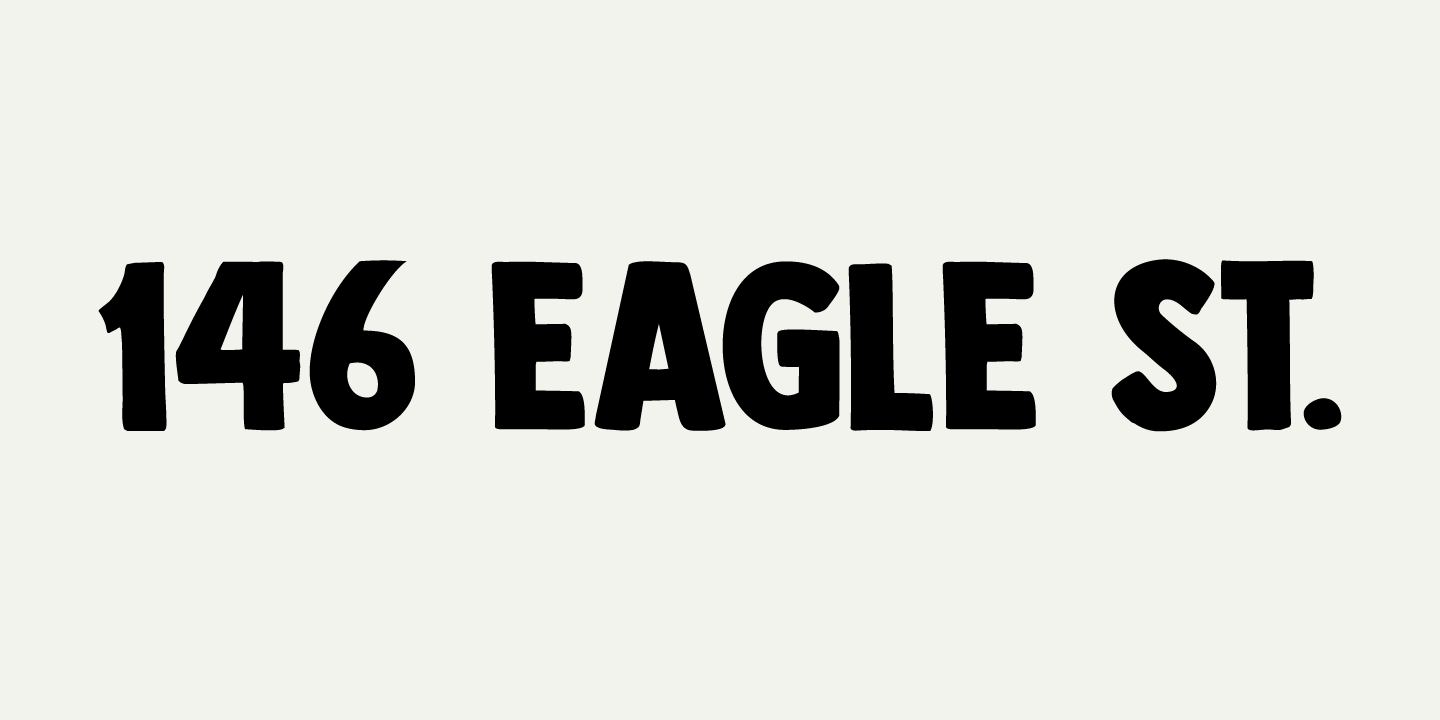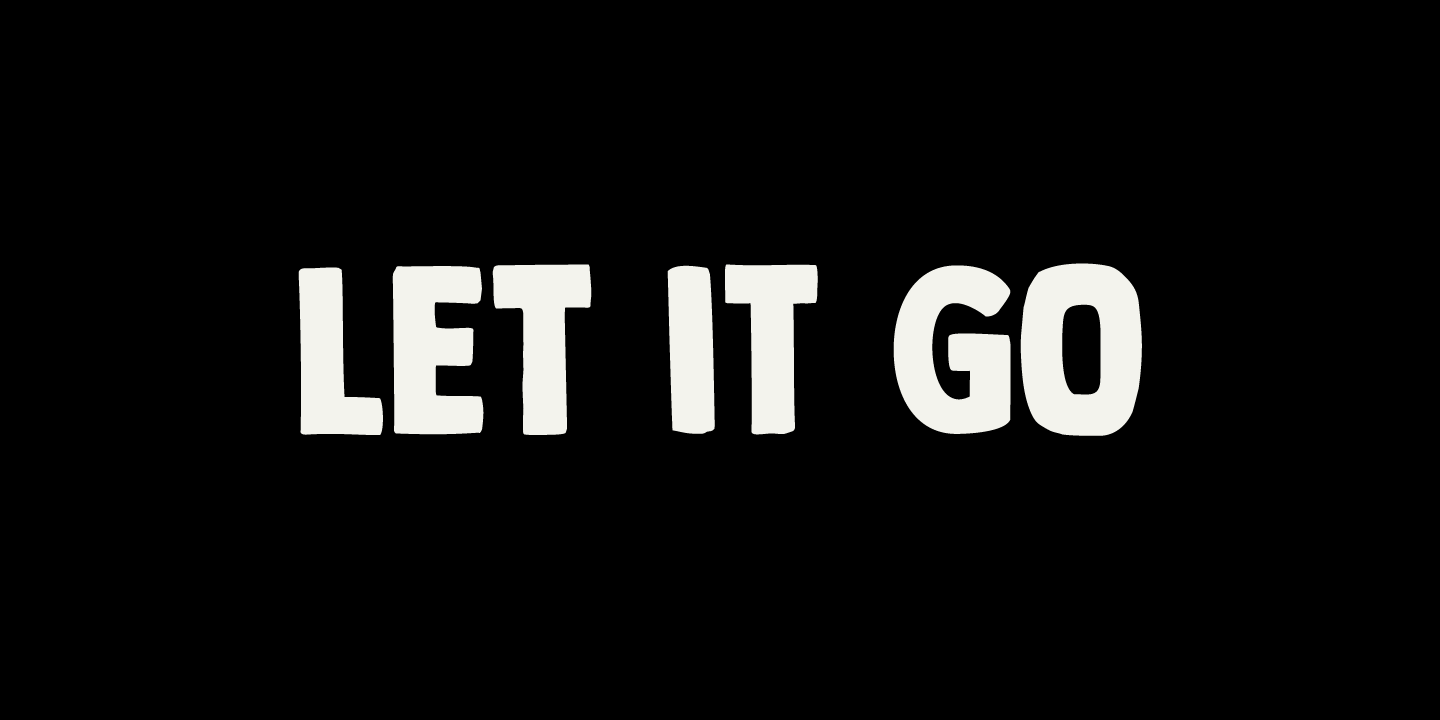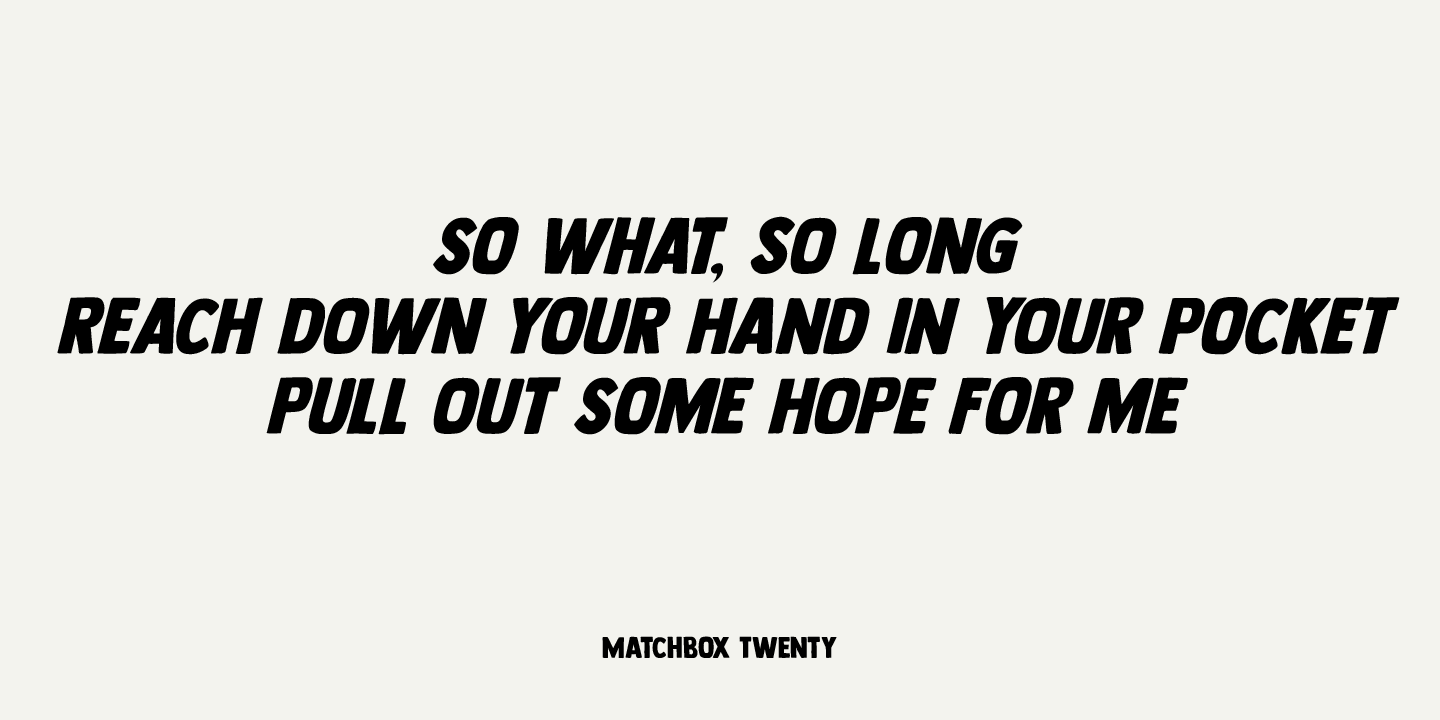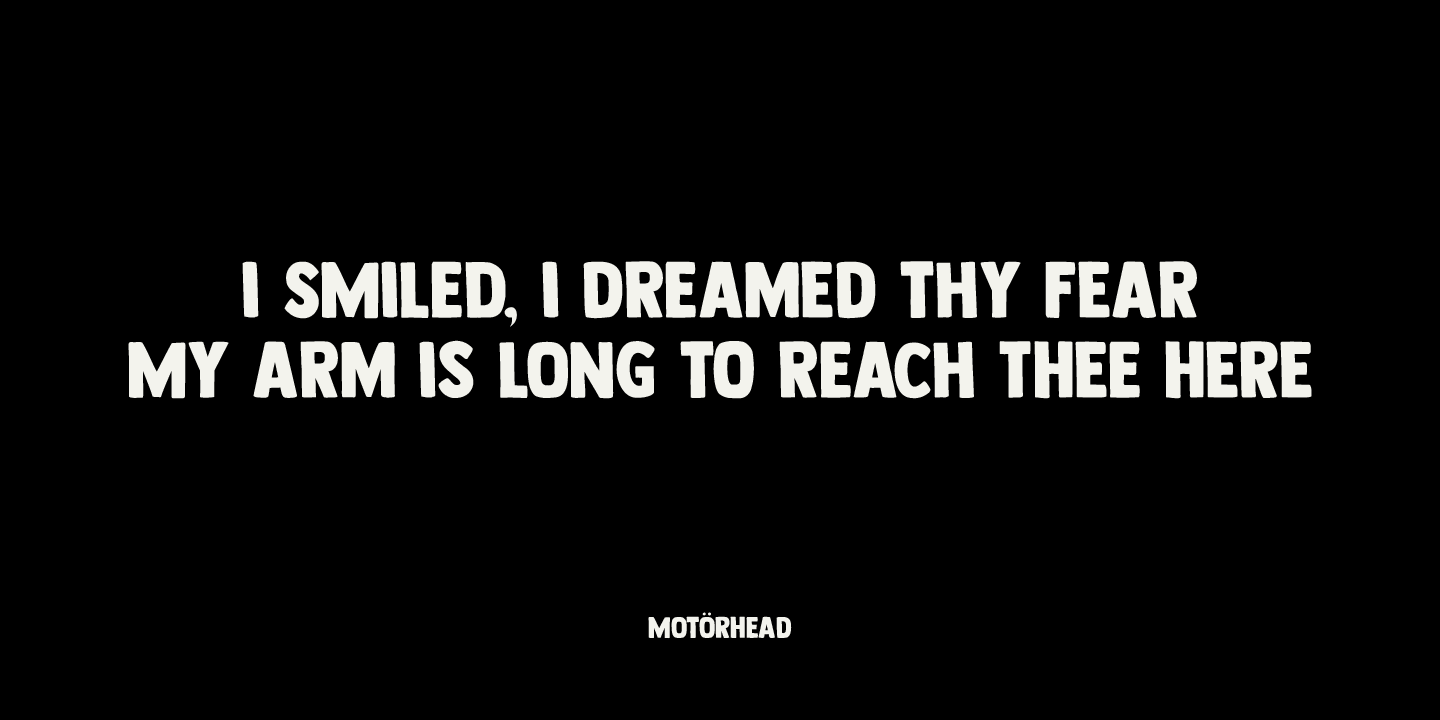
About Longreach
Longreach is a carefully crafted, handmade all caps display font. The glyphs are nice and crisp, with slightly rounded corners. Use Longreach for your product packaging, books and websites.